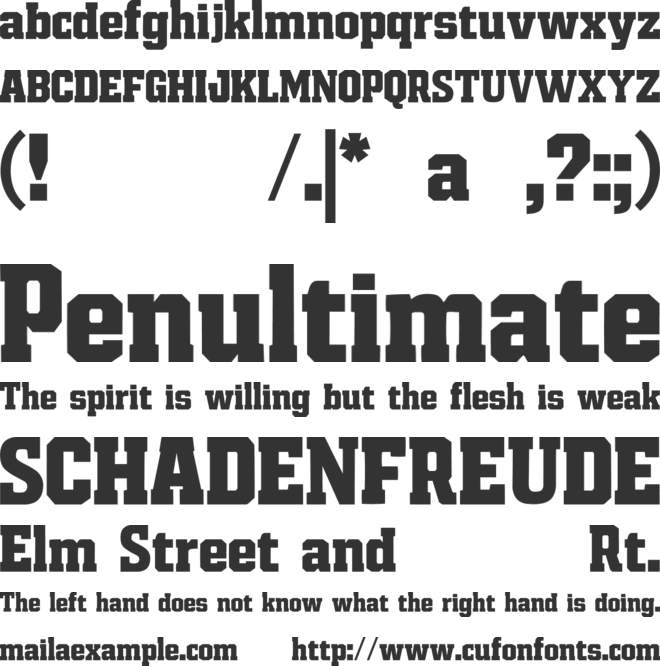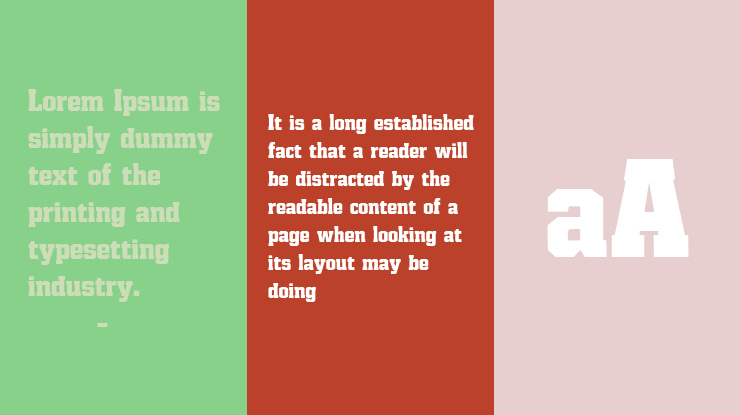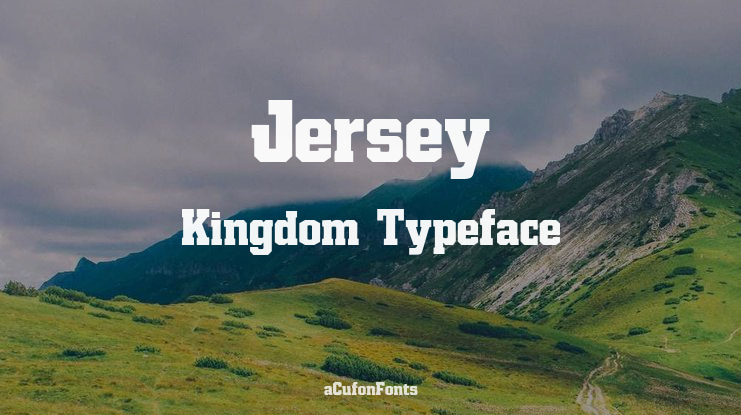
Jersey Kingdom Font
🎨 Font Name: Jersey Kingdom by Minimalist Art Studio
🎨 Font Description: Jersy Kingdom is a sporty slab serif with 1800+ glyphs and six styles, built for bold branding, team spirit, and authentic display design.